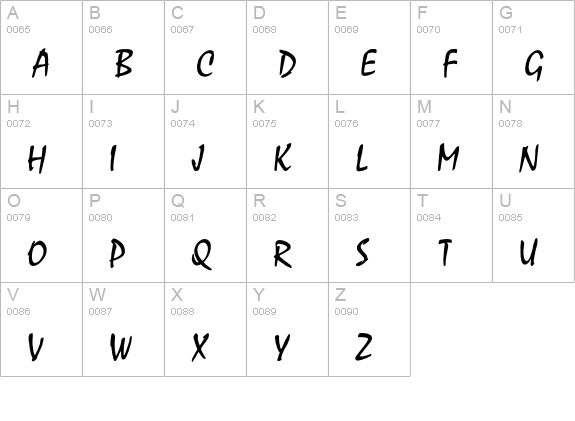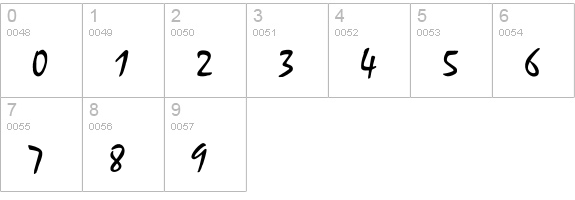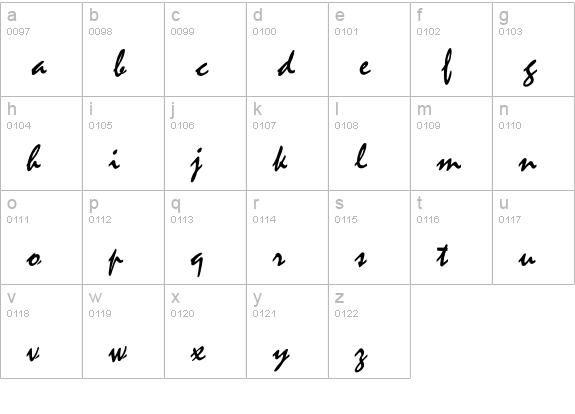
Kalahari Font Details
Introducing Kalahari Font, a sensational typeface that embodies the spirit of adventure and the untamed beauty of the African wilderness. This exquisite font, with its bold and expressive letterforms, captures the essence of the vast Kalahari desert, where every grain of sand tells a story of resilience and strength. Kalahari Font is a versatile typeface that seamlessly blends elegance with a touch of rustic charm. Its unique design features intricate details and organic shapes that evoke a sense of natural beauty and wanderlust. Each letter has been carefully crafted to reflect the raw and untamed energy of the Kalahari, making it a perfect choice for those seeking to add a touch of exotic flair to their projects. One of the most remarkable aspects of Kalahari Font is that it is available for free download at FontsMarket.com. Yes, you read that right - this extraordinary font can be yours without any cost. Whether you are a graphic designer, a typographer, or simply someone who appreciates the beauty of typography, Kalahari Font offers an incredible opportunity to enhance your creative endeavors without breaking the bank. Downloading Kalahari Font from FontsMarket.com is a breeze. With just a few clicks, you can add this captivating typeface to your collection and bring a touch of the Kalahari's magic to your designs. Its versatility allows it to shine in a variety of contexts, from bold headlines and eye-catching logos to elegant invitations and captivating posters. So, why wait? Embrace the spirit of adventure and set your creativity free with Kalahari Font. Download it now from FontsMarket.com and unlock a world of possibilities. Let the captivating allure of the Kalahari fuel your imagination and transport your designs to new heights. With Kalahari Font, the possibilities are endless, and the adventure begins now.